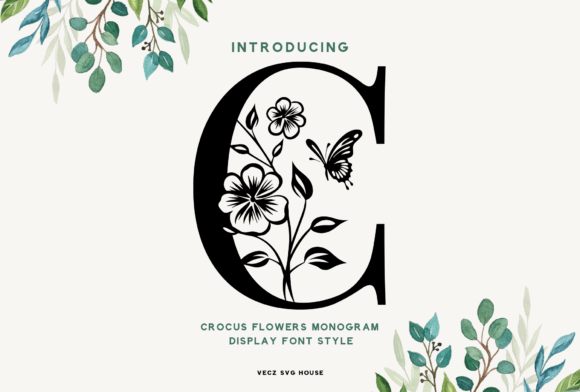
The Crocus Monogram Font: A Delicate yet Elegant Typographic Masterpiece
I still remember the design project that led me to discover the Crocus Flower Monogram Font. I was working on a wedding invitation suite, and my client requested a font that was both elegant and whimsical. I had spent hours scouring font websites, but nothing seemed to fit the bill. That was until I stumbled upon the Crocus Flower Monogram Font. Its delicate lines and harmonious proportions immediately captivated me, and I knew I had found the perfect fit.
Here’s what I love about the Crocus Flower Monogram Font:
- ✨ Elegant and sophisticated design that adds a touch of luxury to any project
- ✅ Versatile and adaptable for various design contexts, from wedding invitations to high-end branding
- 💫 Clean lines and harmonious proportions create a sense of serenity and calmness
- 🎨 Unique and captivating charm that adds a touch of enchantment to any project
And, like any font, it’s not without its quirks:
- ⚠️ Some users may find the font’s delicate lines and intricate details challenging to read at small sizes
- 🤔 Limited availability of stylistic alternates and glyphs, which may limit its use in certain design contexts
The Designer Inspiration Behind the Crocus Flower Monogram Font
The Crocus Flower Monogram Font was inspired by the delicate beauty of the crocus flower. The font’s designer, a talented typographer, wanted to capture the essence of this beautiful flower in a monogram design. The result is a font that embodies elegance, sophistication, and a touch of whimsy.
| What is the Crocus Flower Monogram Font? | The Crocus Flower Monogram Font is a typographic creation that encapsulates the delicate beauty of the crocus flower in a monogram design. |
| What design contexts is the Crocus Flower Monogram Font suitable for? | The Crocus Flower Monogram Font is versatile and adaptable for various design contexts, including wedding invitations, high-end branding, floral-inspired logos, and decorative monograms. |